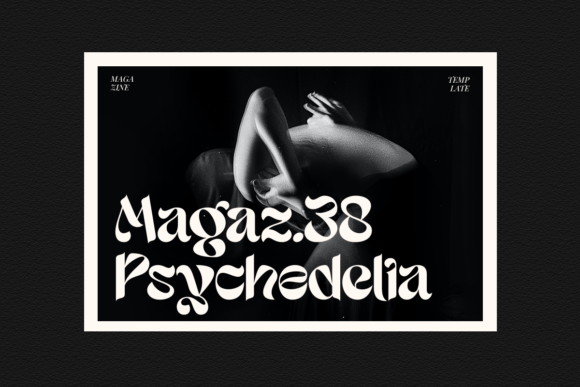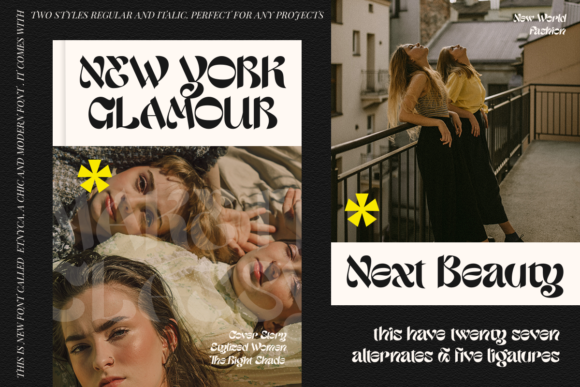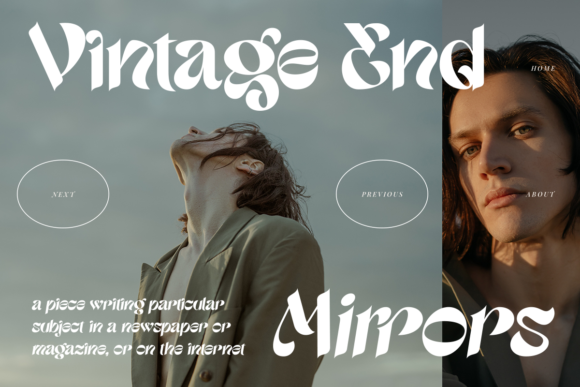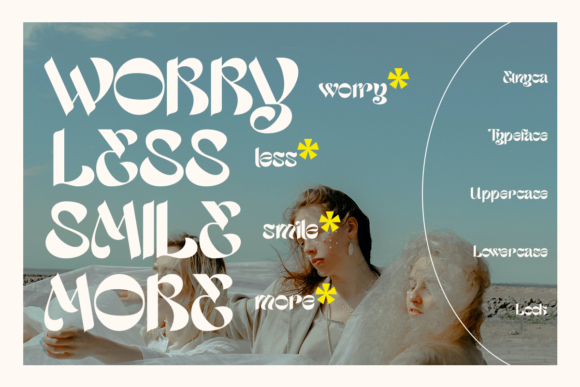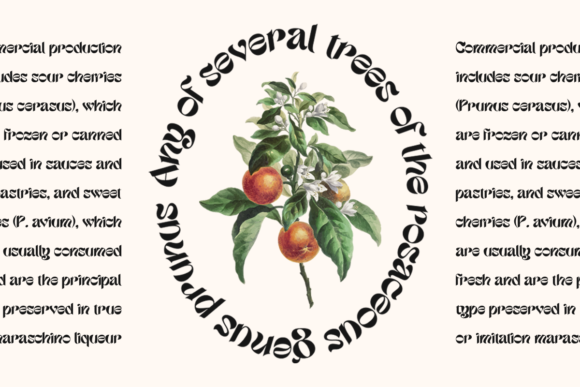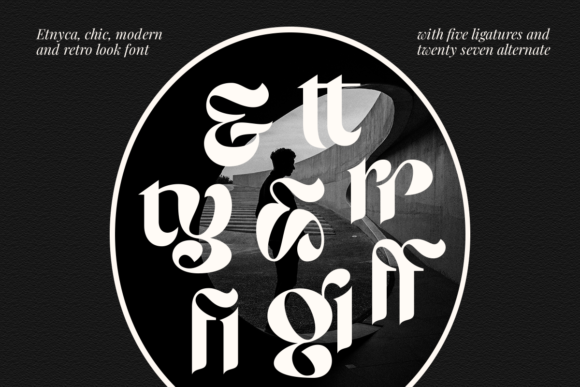
Introducing Etnyca Font: Elevate Your Designs with Elegance and Sophistication
Are you on the hunt for a font that exudes style, trendiness, and a touch of sophistication? Look no further than Etnyca Font, a stunning serif font that’s about to take your designs to the next level. In this article, we’ll dive into the world of Etnyca, exploring its features, benefits, and uses, as well as provide tips and inspiration for incorporating it into your creative projects.
What is Etnyca Font?
Etnyca is a beautifully crafted serif font that’s designed to add a touch of elegance and refinement to your designs. Its stylish and trendy aesthetic makes it perfect for a wide range of applications, from branding and advertising to packaging and digital media. Etnyca’s classic serif design ensures that it remains highly legible, even at smaller font sizes, making it an excellent choice for body text and headlines alike.
The Power of PUA Encoding
One of the standout features of Etnyca Font is its PUA (Private Use Area) encoding. This means that you can access a vast array of glyphs and swashes with ease, giving you unparalleled creative control over your designs. With PUA encoding, you can effortlessly swap out characters, add flourishes, and experiment with different typographic combinations to create truly unique and eye-catching designs.
Benefits of Using Etnyca Font
So, why should you choose Etnyca Font for your next design project? Here are just a few compelling reasons:
- Elegant and sophisticated aesthetic: Etnyca’s classic serif design and stylish aesthetic make it perfect for creating high-end designs that exude luxury and refinement.
- Highly legible: Etnyca’s clear and concise design ensures that your text remains easy to read, even at smaller font sizes.
- PUA encoded for creative control: With PUA encoding, you can access a vast array of glyphs and swashes, giving you the freedom to experiment and push the boundaries of typographic creativity.
- Versatile: Etnyca is suitable for a wide range of applications, from branding and advertising to packaging and digital media.
Tips for Using Etnyca Font
To get the most out of Etnyca Font, here are a few tips to keep in mind:
- Experiment with different font sizes: Etnyca looks great at both large and small font sizes, so don’t be afraid to experiment and find the perfect size for your design.
- Play with glyphs and swashes: With PUA encoding, you can access a vast array of glyphs and swashes. Take some time to explore these and add a touch of personality to your designs.
- Pair with complementary fonts: Etnyca pairs beautifully with a range of fonts, from sans-serif fonts like Arial and Helvetica to script fonts like Pacifico and Great Vibes.
Still not sure how to use Etnyca Font in your designs? Here are a few ideas to get you started:
- Branding and logos: Use Etnyca to create a sophisticated and elegant brand identity that exudes luxury and refinement.
- Wedding and event invitations: Etnyca’s classic serif design and stylish aesthetic make it perfect for creating beautiful and elegant wedding and event invitations.
- Packaging design: Add a touch of sophistication to your packaging designs with Etnyca, perfect for luxury brands and high-end products.
| Font Name | Etnyca Font |
| Author | Dharmas Studio |
In conclusion, Etnyca Font is a stylish and trendy serif font that’s perfect for designers and crafters looking to elevate their designs with elegance and sophistication. With its PUA encoding, elegant aesthetic, and high legibility, Etnyca is an excellent choice for a wide range of applications. So why wait? Download Etnyca Font today and discover the power of typographic creativity!